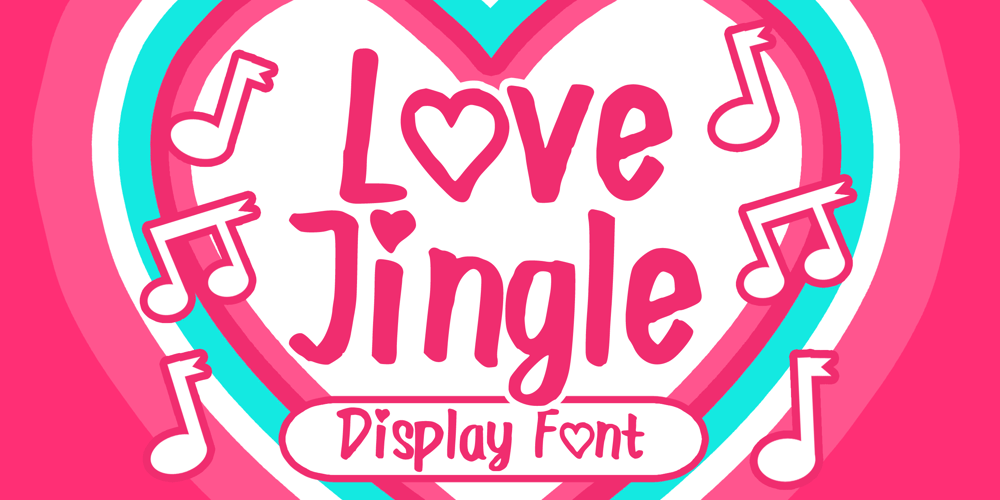
Love Jingle Font Family was designed by Gabriel Valentinus and published by Mvmet. Love Jingle contains 1 styles and family package options. Love Jingle is a fun and lovely handwritten font that you can use it for anything ranging from t-shirts, book designs, packaging, and greeting cards to stickers and posters, or anything that needs a casual touch, it will be your perfect font to pick. Fall in love with its incredibly versatile style, and use it to create lovely designs!